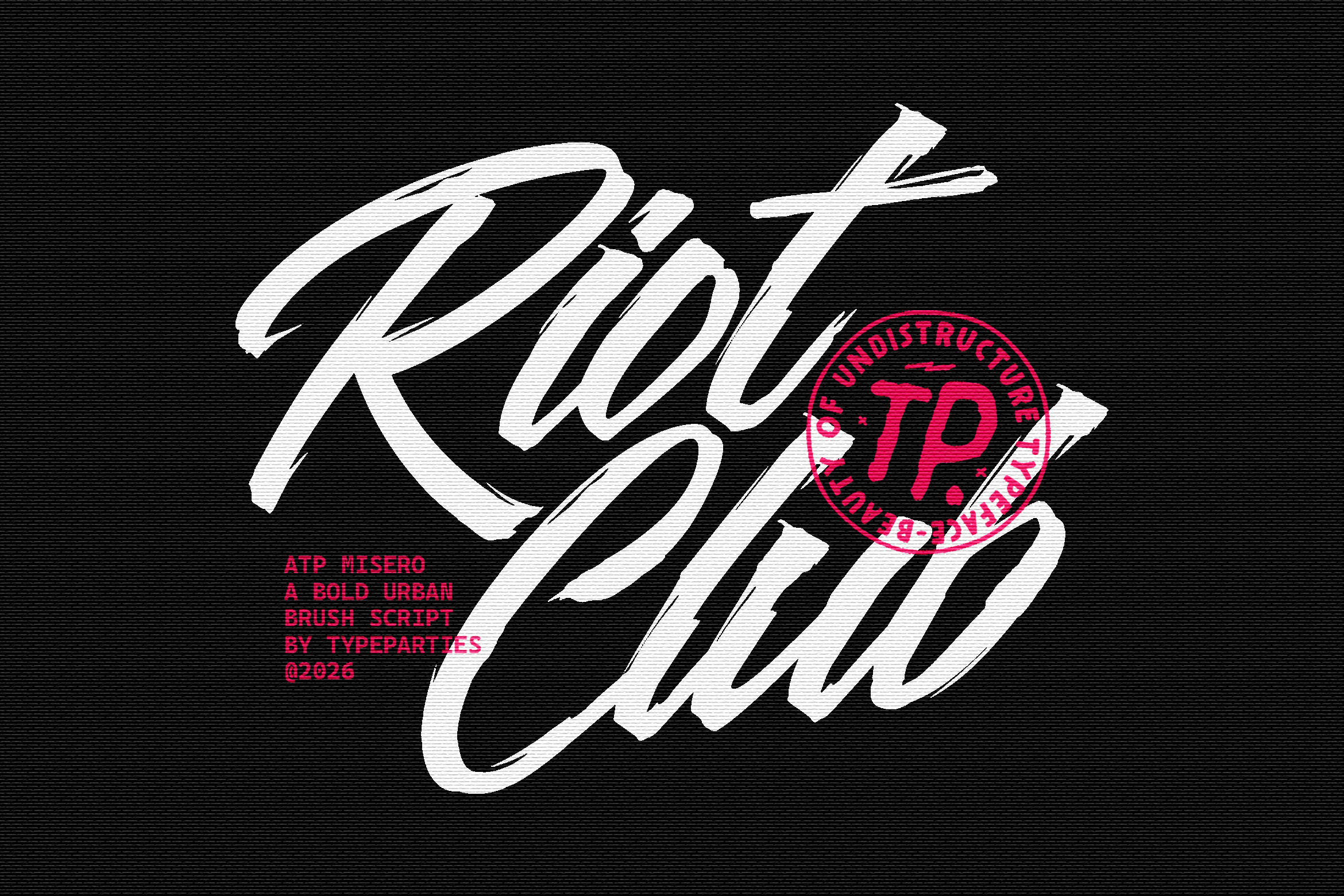
Misero - Brush Script Font
Misero is a contemporary brush script typeface developed through the simulation of manual dry-brush stroke behavior, producing organic pressure variation, textured terminals, and dynamic rhythm across each letterform. This structural approach allows the font to maintain visual expressiveness while preserving legibility in large-scale typography applications. As a result, Misero functions effectively as a display brush script font for logos, streetwear branding, poster composition, music visuals, packaging, and social media design.
By integrating handcrafted lettering aesthetics with modern digital refinement, Misero offers designers a typographic system that communicates movement, personality, and urban visual culture while remaining adaptable for both print and screen environments. Its bold stroke construction and balanced spacing make it a reliable branding and headline font for projects requiring high visibility and strong stylistic presence.